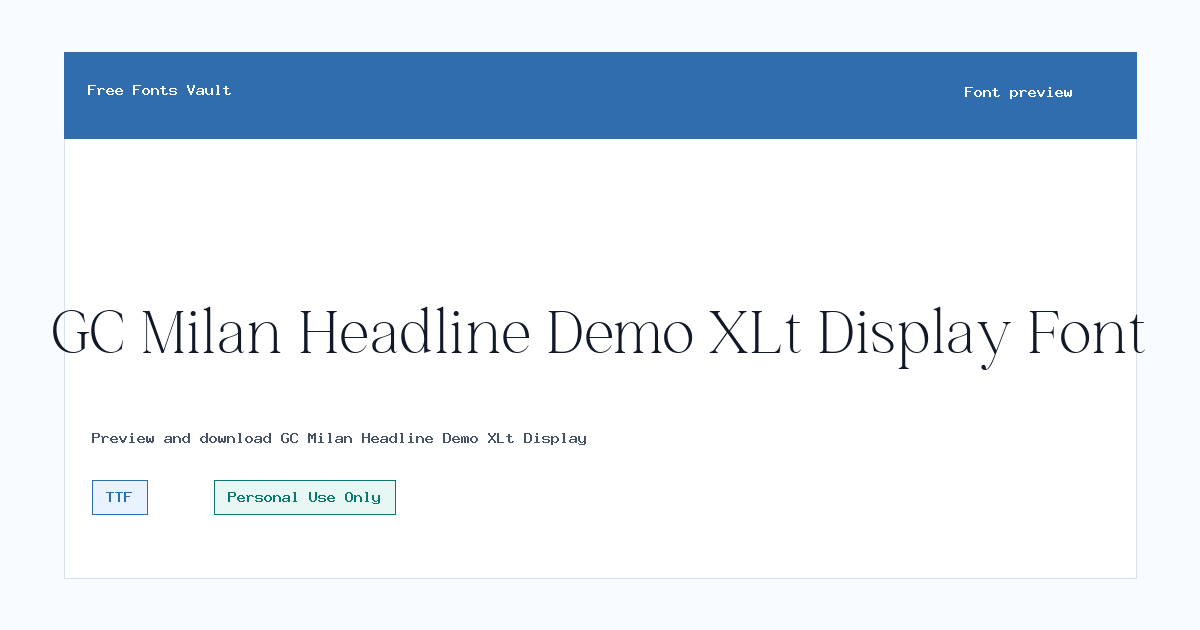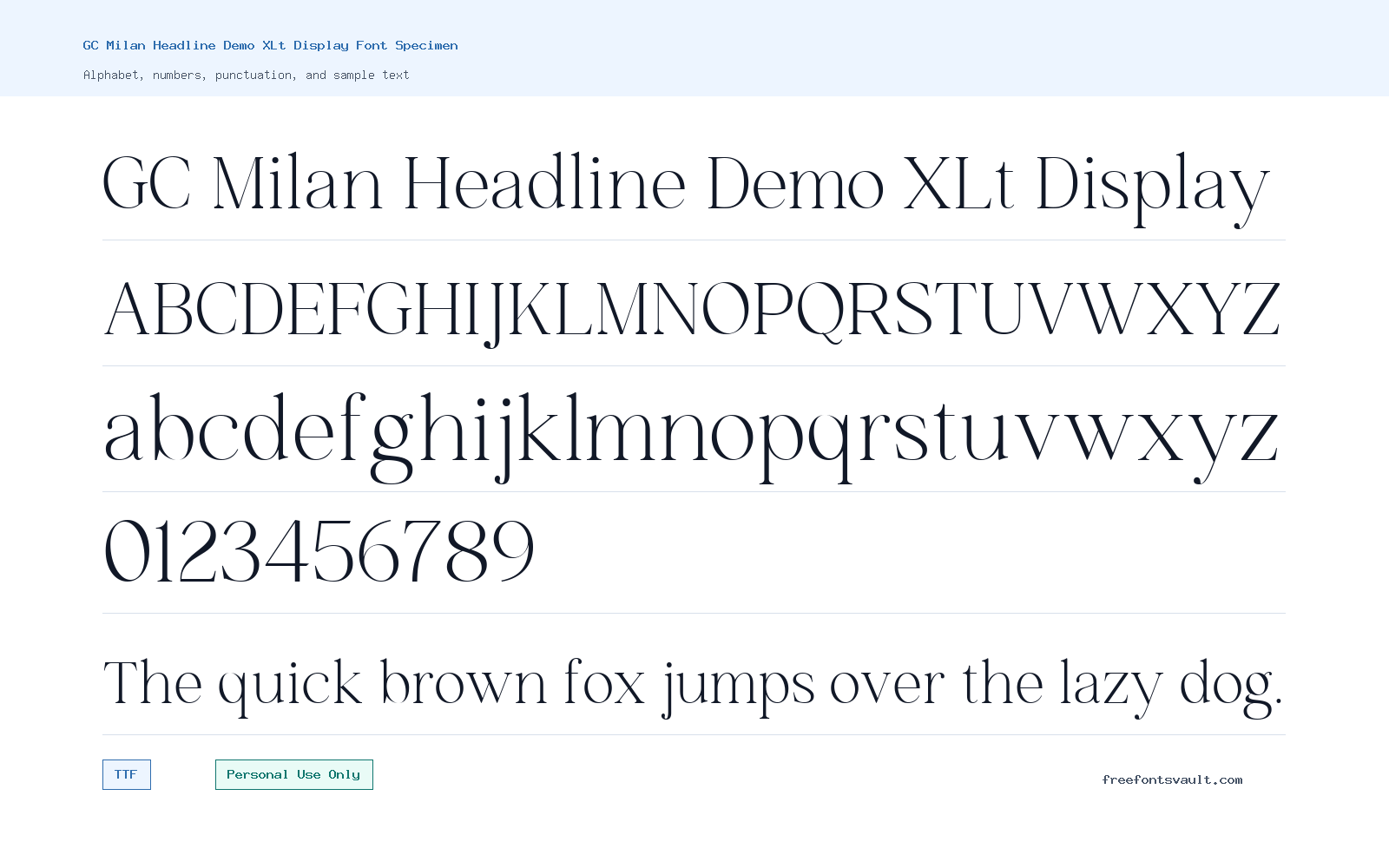
GC Milan Headline Demo XLt Display
- Designer Zainaldi Ibrahim of Glyphonic
GC Milan Headline Demo XLt Display is an extra-light display serif made for elegant short text, especially titles, refined headings, and stylish preview layouts.
About GC Milan Headline Demo XLt Display
GC Milan Headline Demo XLt Display has a very light serif look, so its strength is in calm, spacious lettering rather than heavy impact. The “XLt Display” name points to an extra-light display cut, which means it is best treated as a headline face instead of a body-text workhorse. Use it where the letter shapes can breathe: large titles, editorial-style headers, logo draft mockups, invitation concepts, portfolio covers, fashion-inspired graphics, or premium-looking social posts. Because the weight is fine, it can feel graceful at larger sizes, but it may lose presence if it is forced into small captions or dense paragraphs.
For the best preview, test this font with short words, nameplates, uppercase headings, and mixed-case titles. Try wider spacing for a more refined look, but avoid pushing the tracking too far if the words need to stay easy to read. Thin display serifs often need strong contrast against the background, so use dark text on a light surface or a clear light-on-dark layout. Pair it with a simple sans serif for supporting copy, menus, dates, and descriptions. A neutral sans keeps the focus on the delicate headline style while making the full design easier to read.
- Extra-light display serif style suited to large headlines, title treatments, and elegant short-form typography.
- Editorial headlines, magazine-style covers, portfolio title pages, and refined poster concepts.
- Invitations, brand mockup drafts, fashion graphics, moodboards, and short social media text designs.
GC Milan Headline Demo XLt Display is credited to Zainaldi Ibrahim of Glyphonic.
Set this font large, keep the text short, and check thin strokes at the final display size before using it in artwork. It is not a good choice for long paragraphs, small labels, low-resolution images, or busy backgrounds. If your design needs readable supporting text, pair it with a clean sans serif or a sturdier serif in a regular weight.
What kind of font is GC Milan Headline Demo XLt Display?
It is a display serif in an extra-light style. It is better for large, elegant headings than for long reading text.
Where does this variant work best?
The XLt Display variant works best in short, large settings such as titles, covers, invitations, editorial headers, and visual identity mockups.
Can I use it for body text?
It is not ideal for body text. The thin strokes may become hard to read at small sizes, so use it for headlines and choose a simpler companion font for paragraphs.